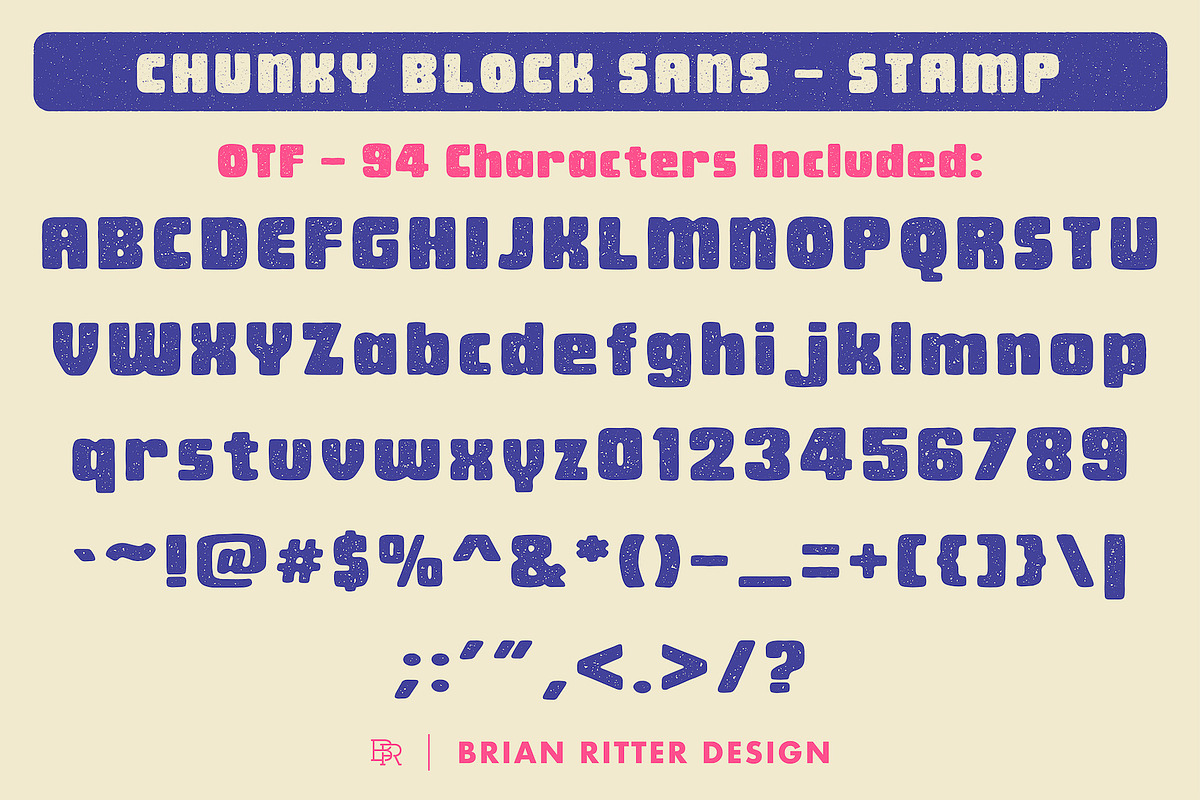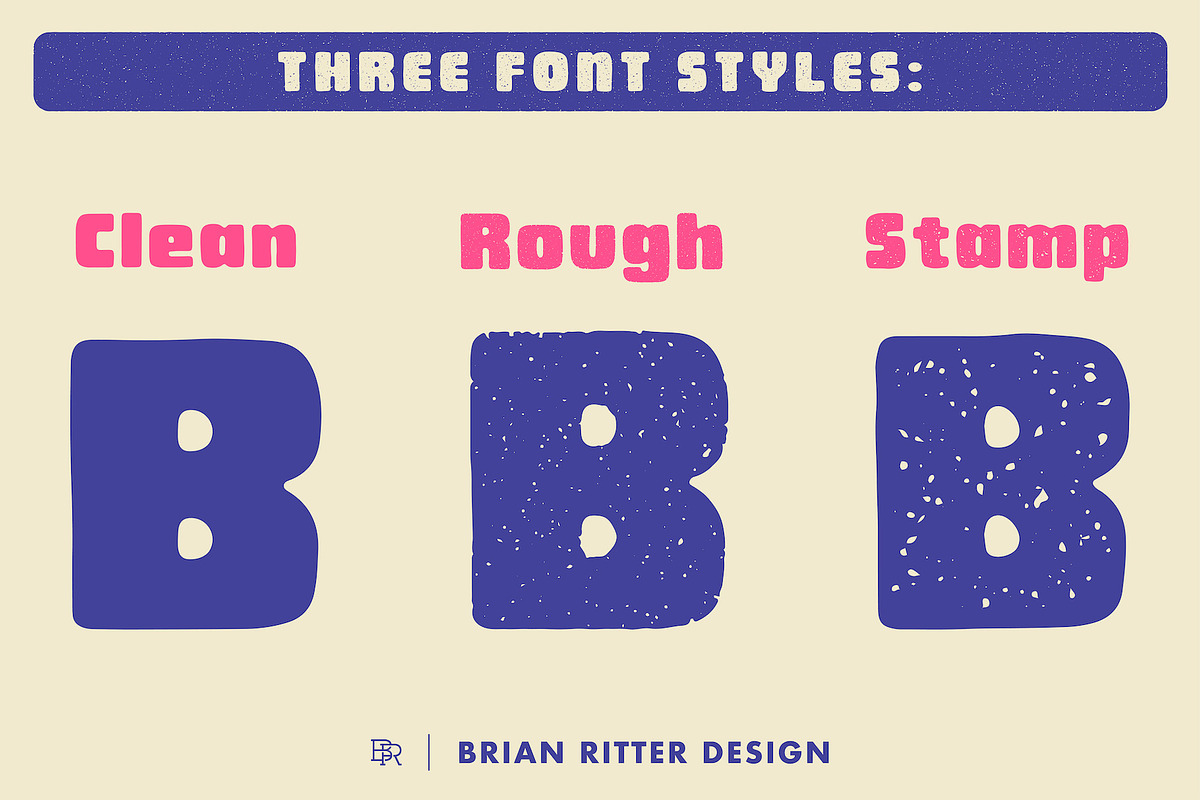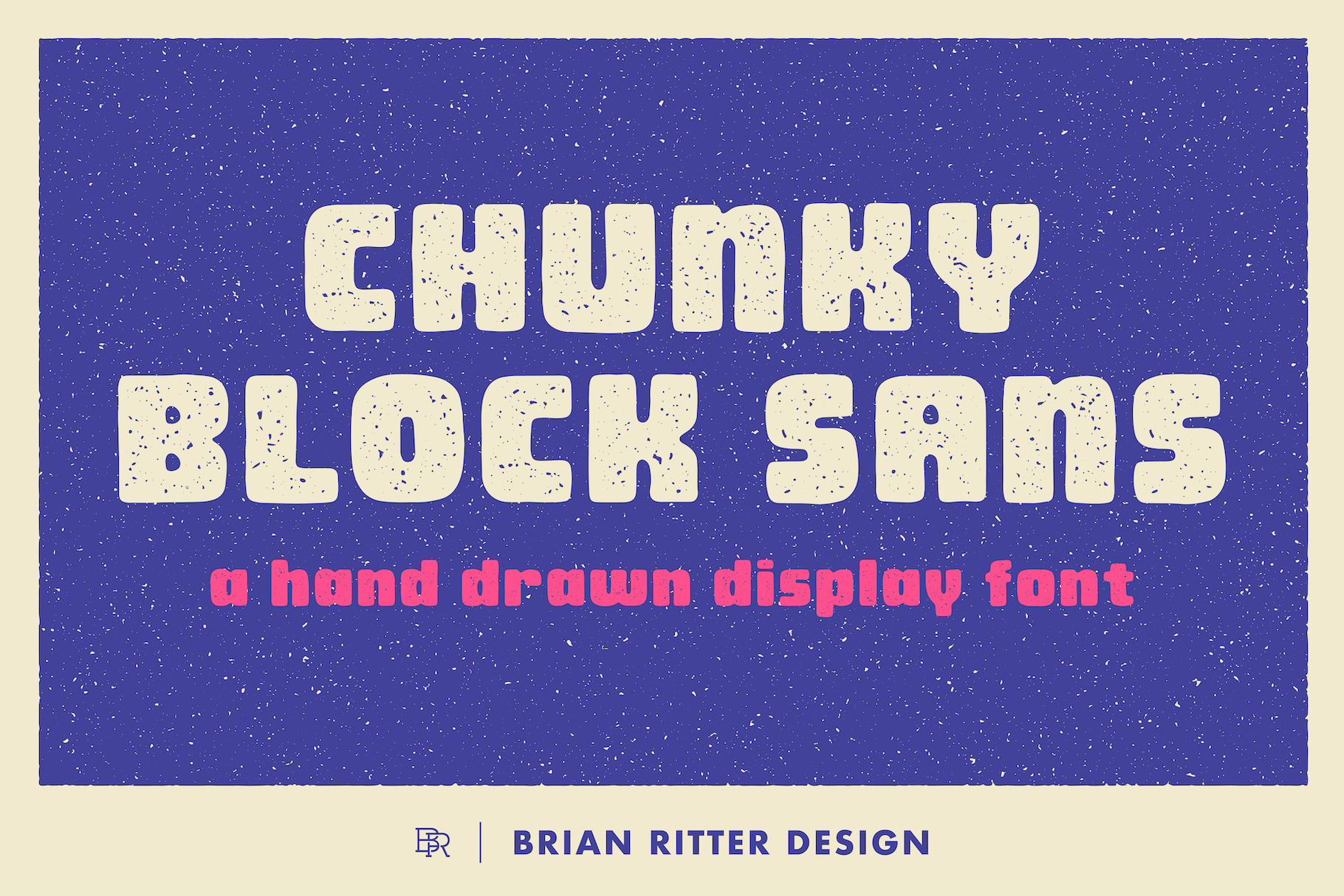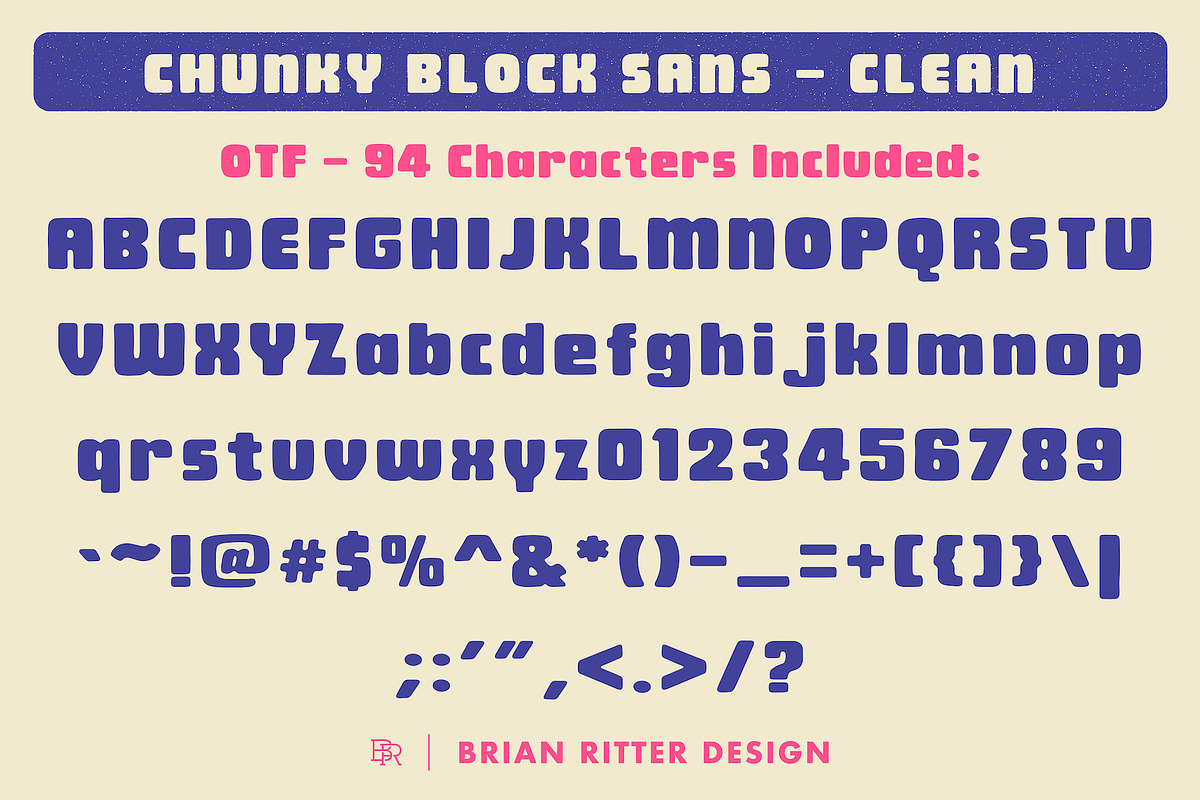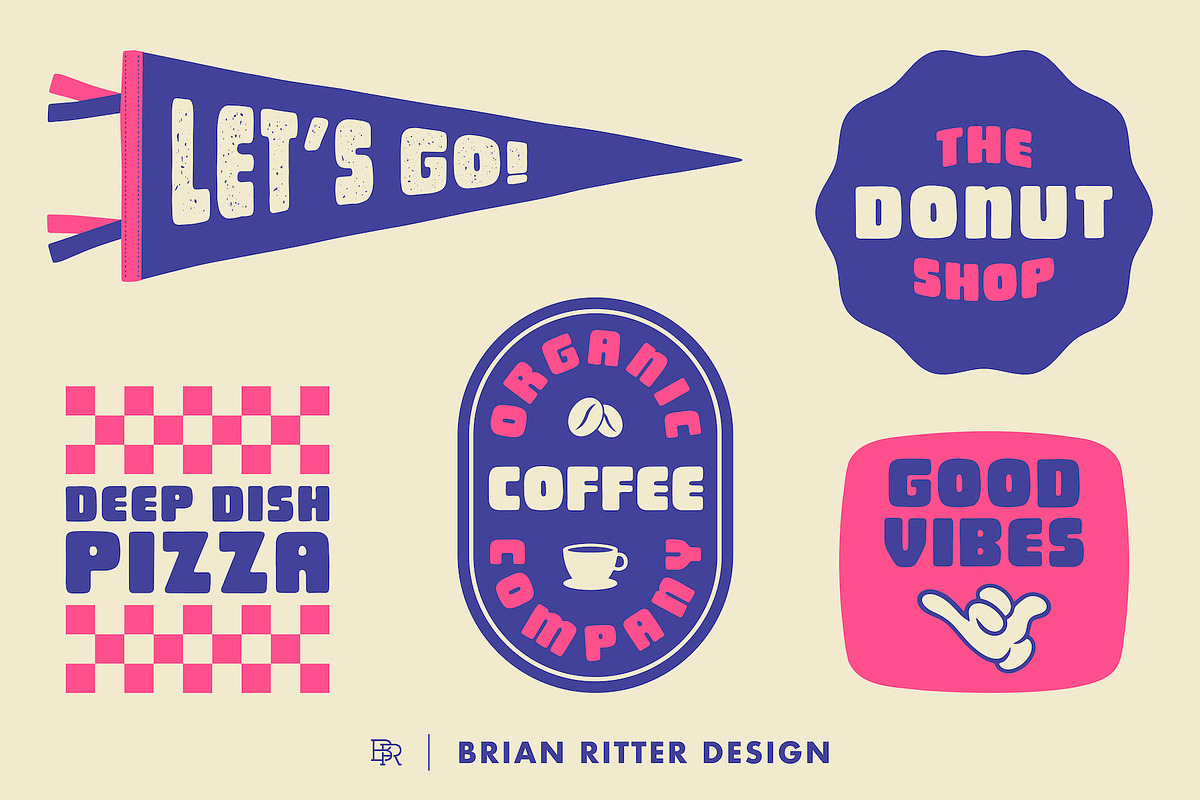
Chunky Block Sans Font
Hand-drawn characters with bold structure. This chunky sans-serif font adds an artisanal yet modern vibe to your projects - ideal for packaging, posters, graphics and branding.
- Chunky Block Sans Clean
- Chunky Block Sans Rough
- Chunky Block Sans Stamp